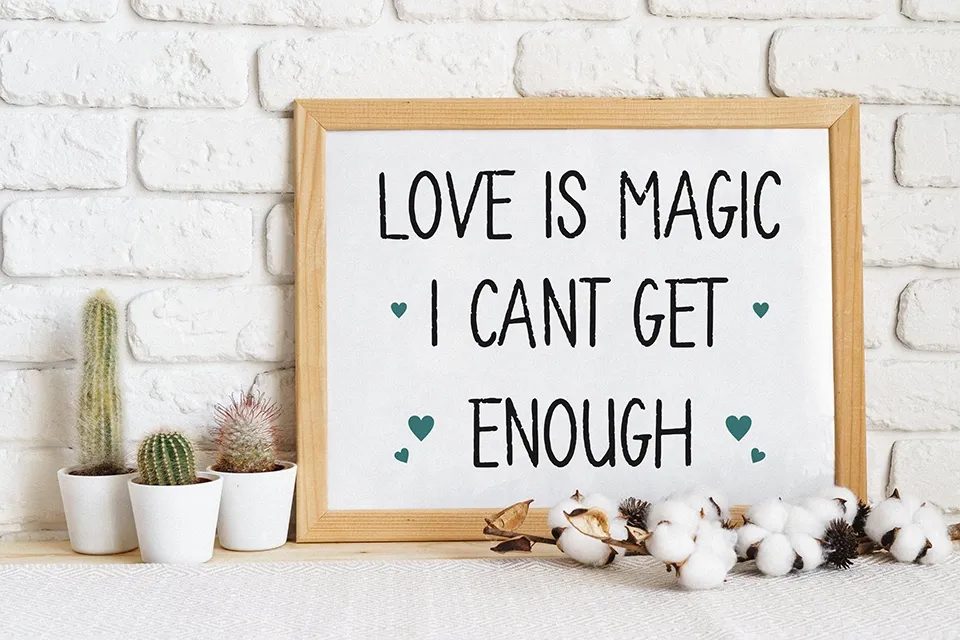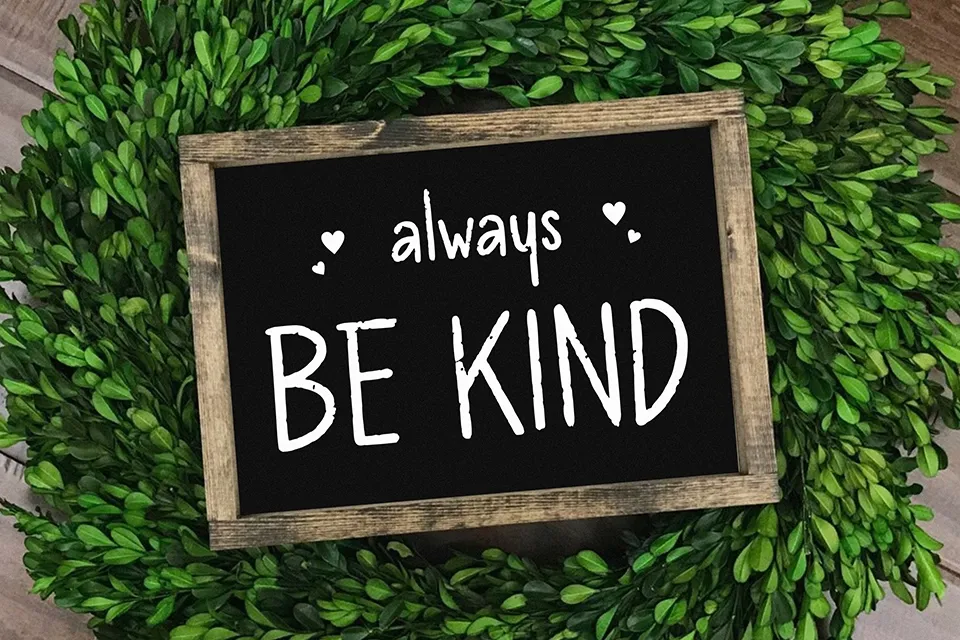
Magic Saturday Font
Magic Saturday Font is a playful and modern typeface designed to bring a cheerful, handcrafted feel to your creative projects. Its quirky and textured letterforms exude personality, making it perfect for fun designs such as posters, children’s books, social media graphics, and educational materials. Created by Essentials Studio, Magic Saturday captures a sense of positivity and imagination, ideal for projects that aim to inspire and delight. The font’s unique style adds a lively charm while maintaining readability, making it versatile for both casual and artistic applications. Add a touch of magic to your designs with this whimsical and creative typeface!